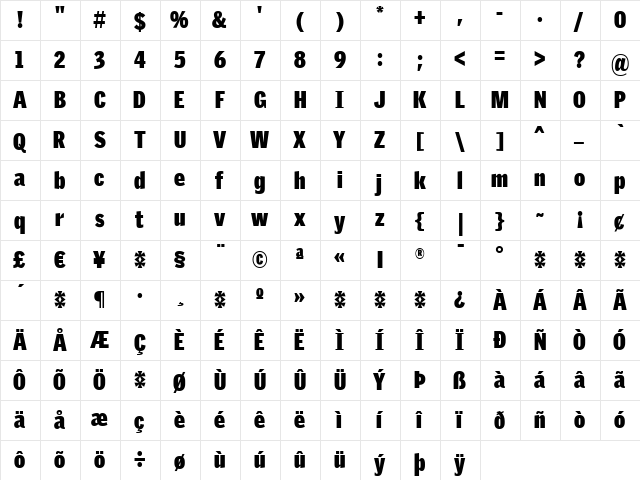
GriffithGothic Cond Ultra Regular Font Preview
| Foundry | The Font Bureau, Inc |
Design Context for GriffithGothic Cond Ultra Typeface
GriffithGothic Cond Ultra takes a clean, functional approach — its unadorned letterforms prioritise legibility and work reliably across screen and print environments. The condensed width makes it efficient for tight spaces without sacrificing legibility.
Font Pairing: Works well alongside a characterful serif or display font that can carry the expressive load while GriffithGothic Cond Ultra handles the functional copy.
Pro Tip: Use GriffithGothic Cond Ultra tightly set in headlines and banners — its condensed proportions make it ideal for maximum impact in minimum horizontal space.